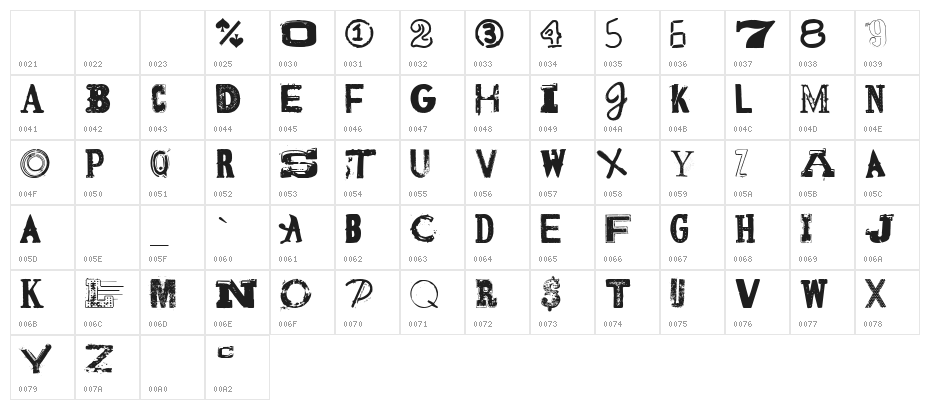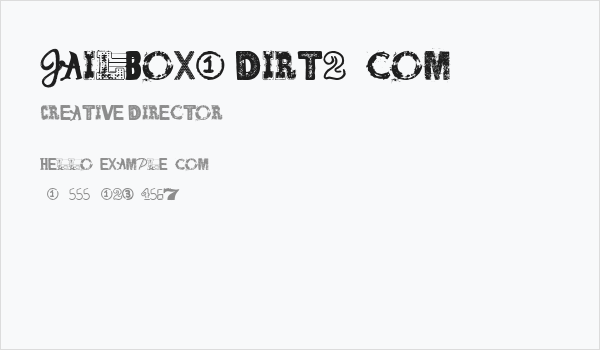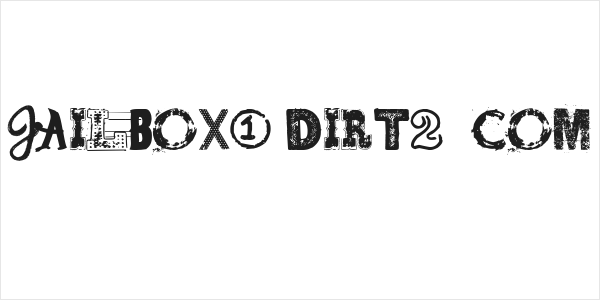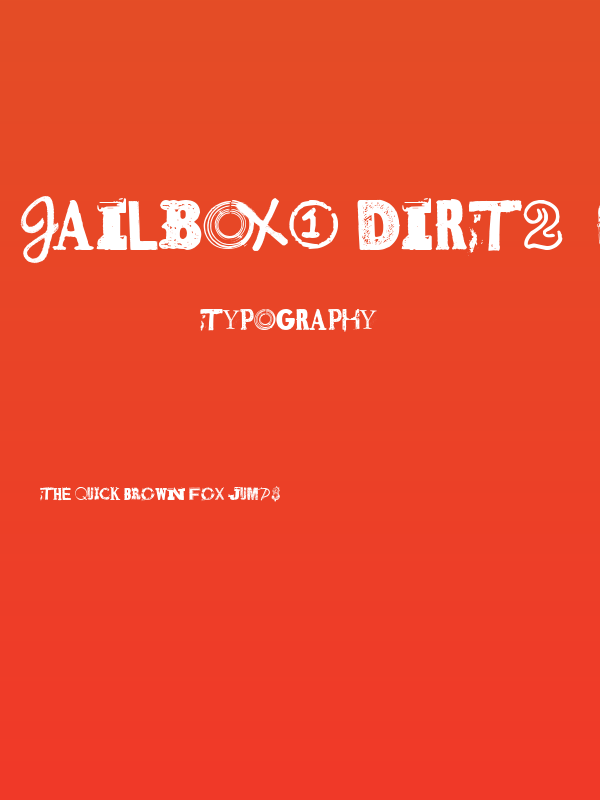
Jailbox1 Dirt2.com Font
Jailbox1 Dirt2.com Description
This font features a distressed and grungy aesthetic, with each character exhibiting unique textures and irregularities. The uppercase letters are bold and varied, with some incorporating elements like stripes, splatters, and scratches. The lowercase letters maintain this rugged style, offering a cohesive yet diverse appearance. Numbers and special characters follow suit, adding to the font's eclectic and edgy vibe. This font is ideal for projects that require a raw, urban feel, such as music album covers, streetwear branding, or event posters. Its distinct style makes it stand out, ensuring that any text using this font will capture attention.
| Overall Style | Grunge, Urban, Eclectic |
| Proposed Projects | Music album covers, streetwear branding, event posters, urban-themed graphics. |